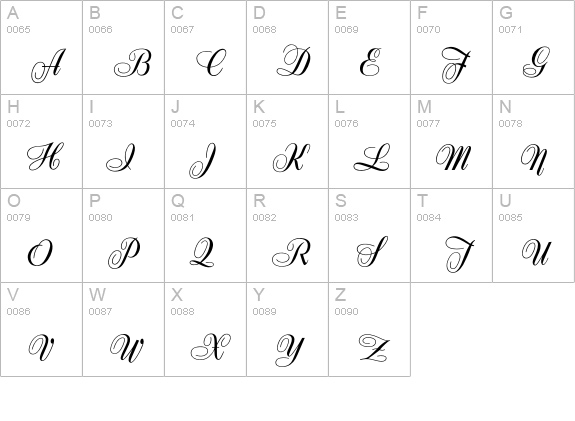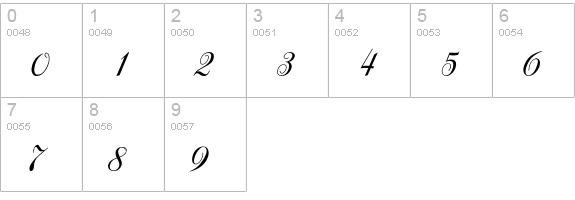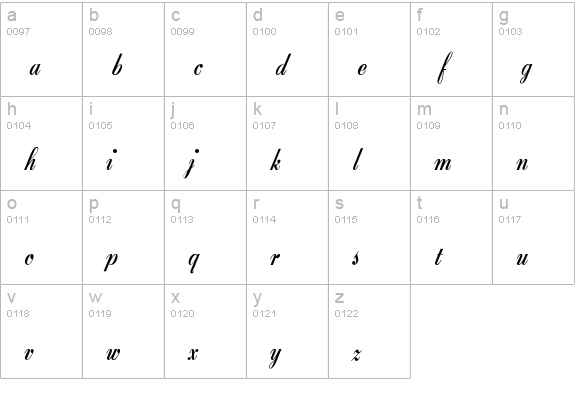
Anette Font Details
Anette font is a stylish and elegant typeface that exudes sophistication and charm. With its delicate curves and graceful lines, this font is perfect for adding a touch of elegance to any design project. Whether you're creating wedding invitations, branding materials, or social media graphics, Anette font will make your text stand out. What sets Anette font apart is not just its beauty, but also the fact that it is completely free to download. You can easily access this stunning font at FontsMarket.com and start using it in your projects right away. Don't miss out on the opportunity to elevate your designs with the timeless beauty of Anette font.